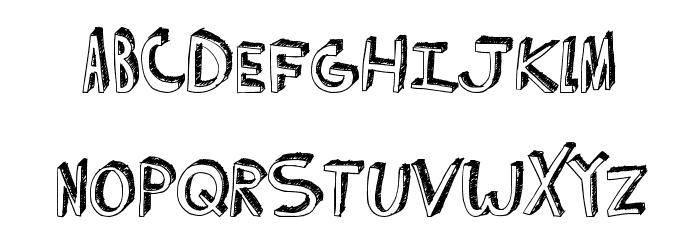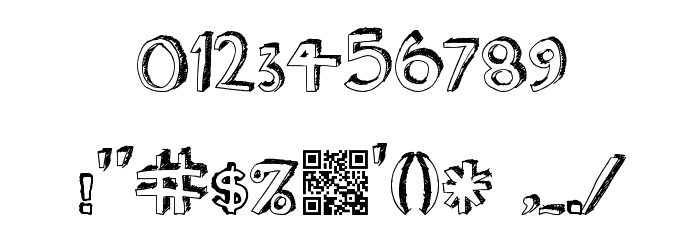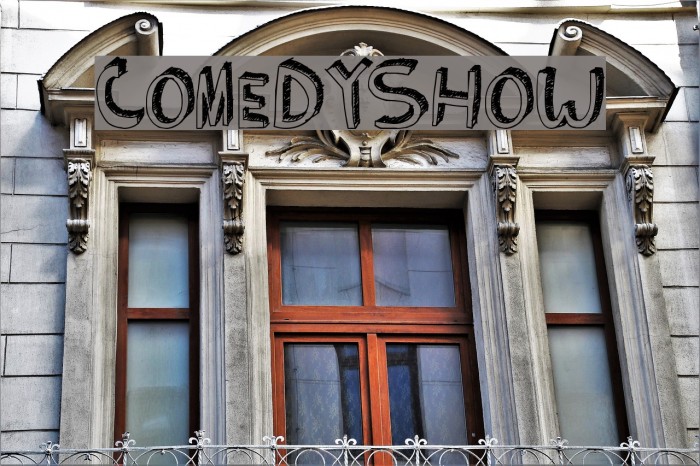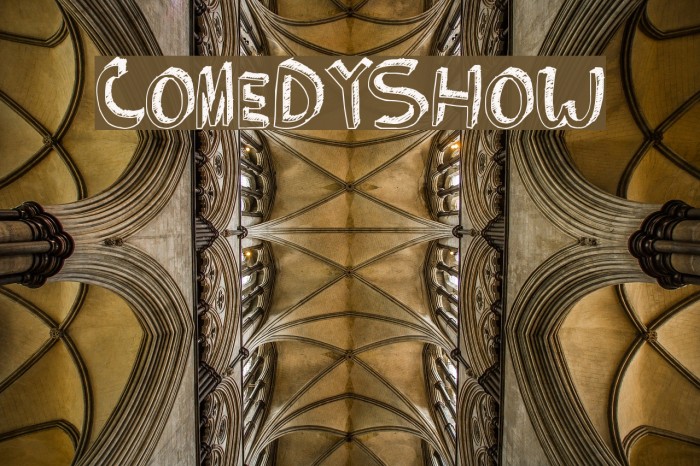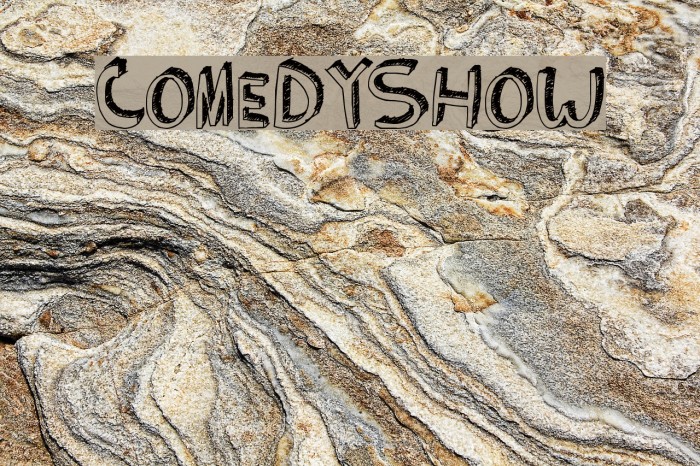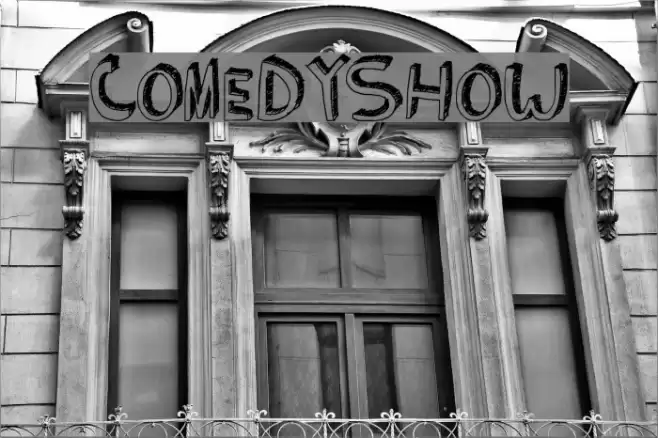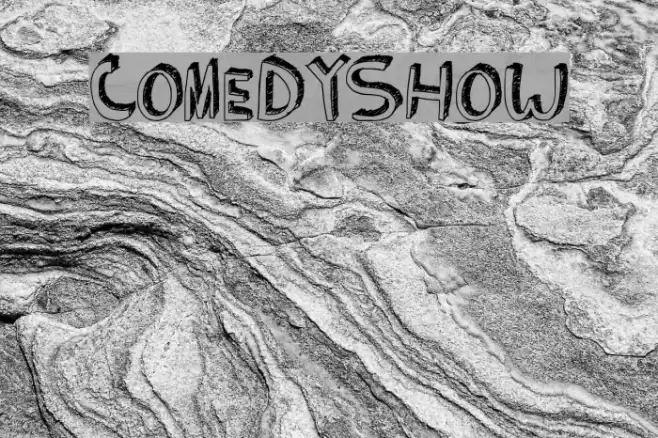
ComedyShow Font
This font exudes a playful and whimsical vibe, characterized by its bold, hand-drawn appearance. Each letter is uniquely crafted with a slightly irregular outline, giving it a lively and dynamic feel. The strokes are thick and uneven, adding to the casual and informal nature of the design. The font maintains a consistent height across all characters, ensuring readability while still embracing its quirky style. The numbers and special characters follow the same playful theme, making it suitable for creative and fun projects.
A playful, hand-drawn font with bold, irregular outlines.
- Proposed Projects: Ideal for children's books, comic strips, playful branding, and event posters.
- Overall Style: Playful
- Use Case: Headlines, Posters, Logos